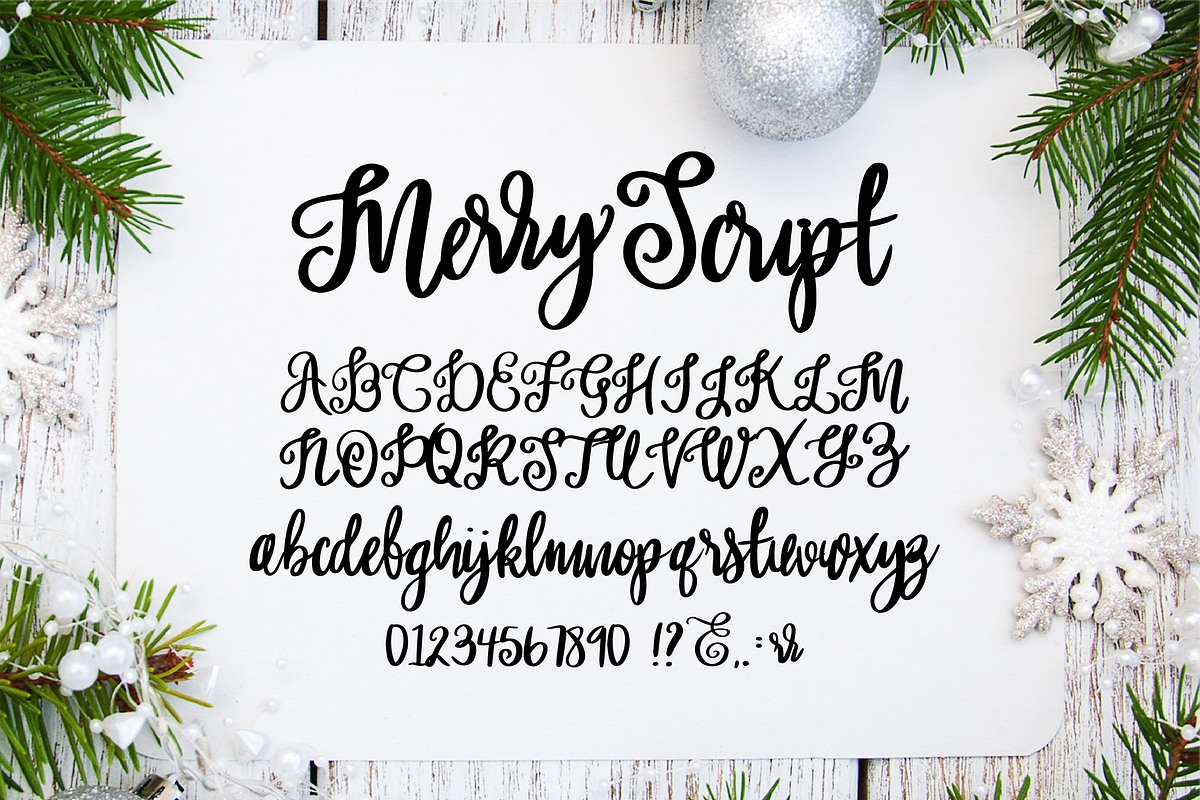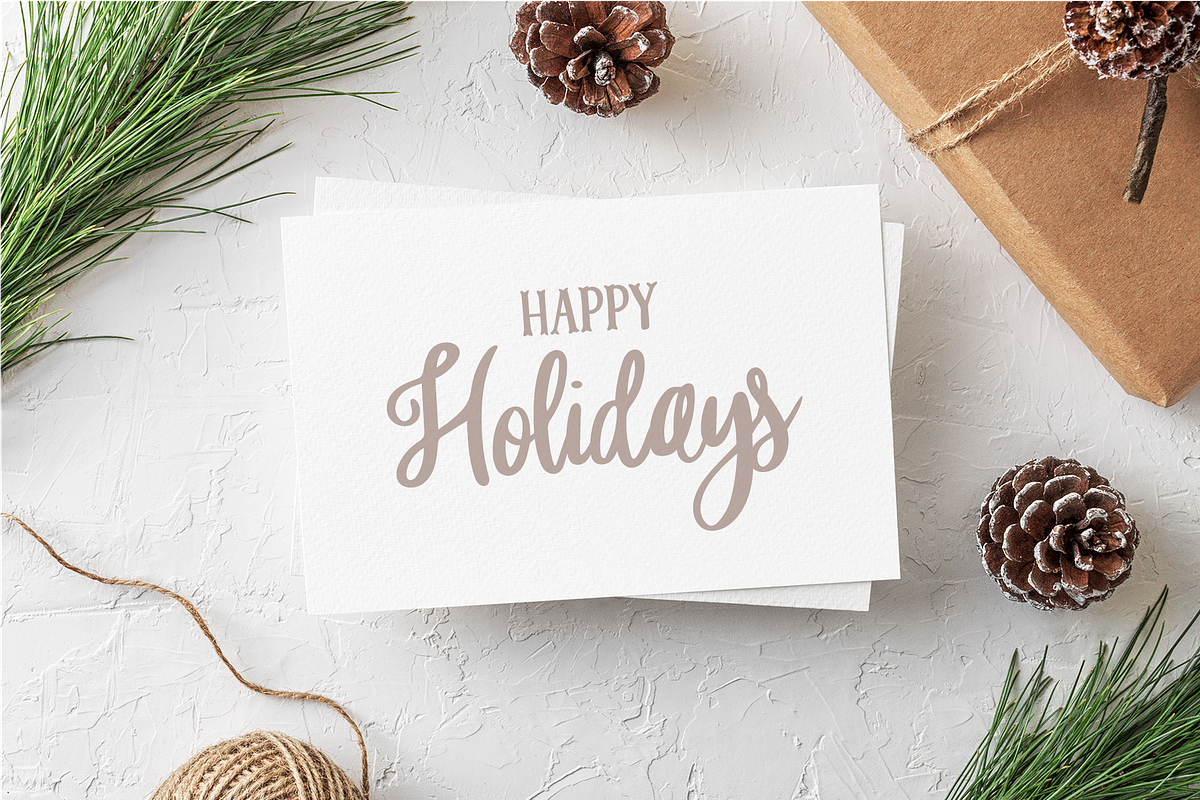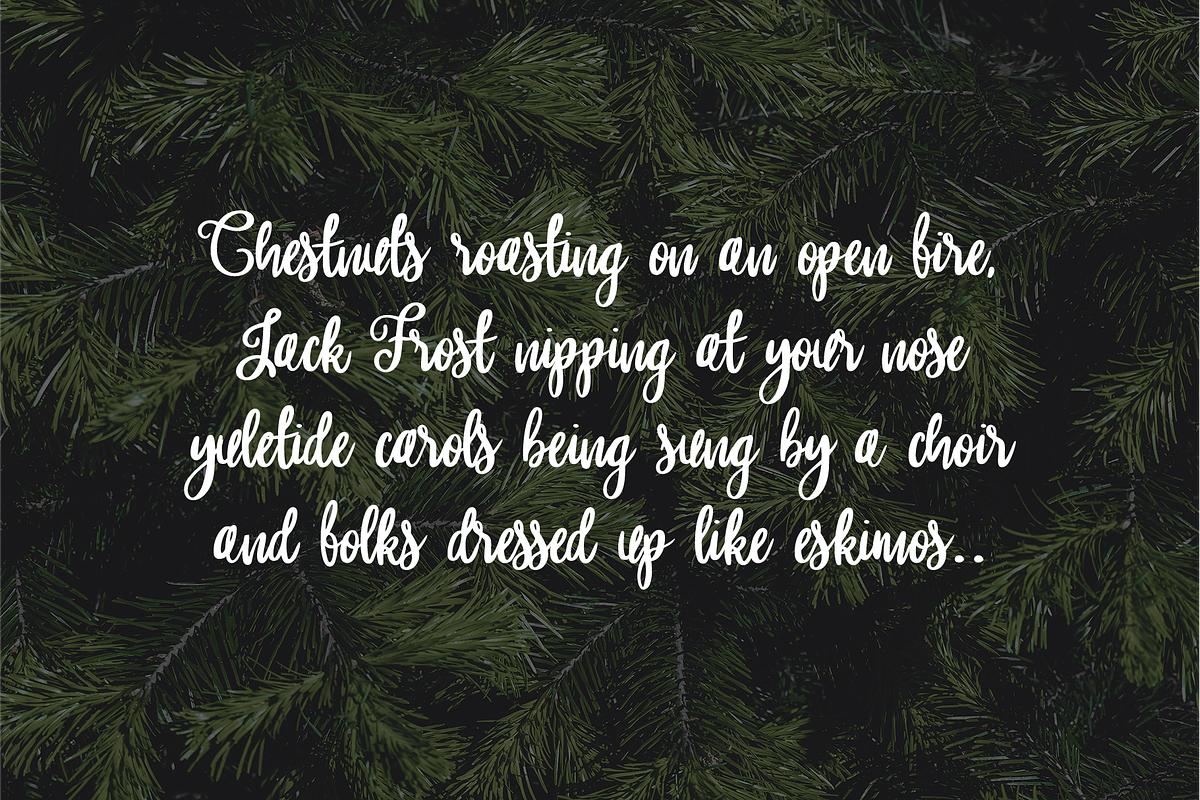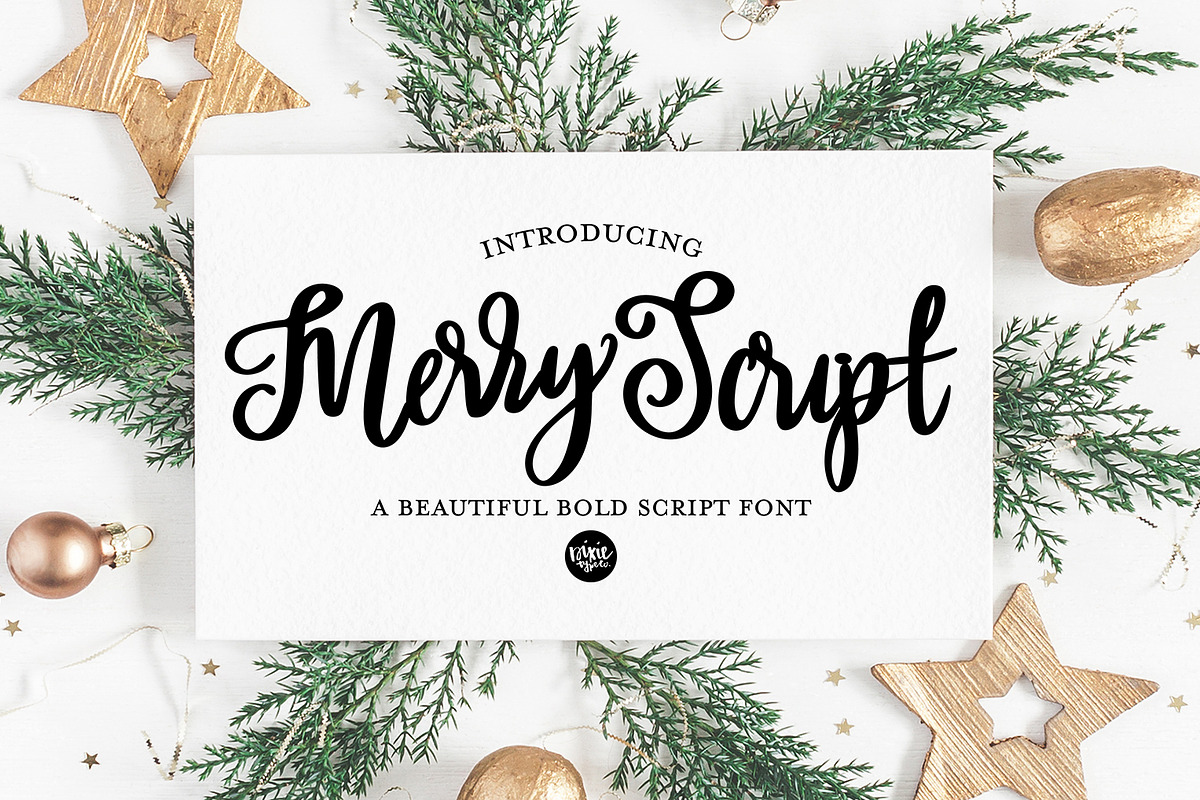
MERRY SCRIPT Christmas Lettered Font
"Merry Script" bold cursive font
{ A typographic font hand lettered with love by Dixie Type Co. }
Merry Script is great for your holiday projects. Use it for Christmas cards, Christmas crafts for decor and more! This font includes numbers and punctuation.